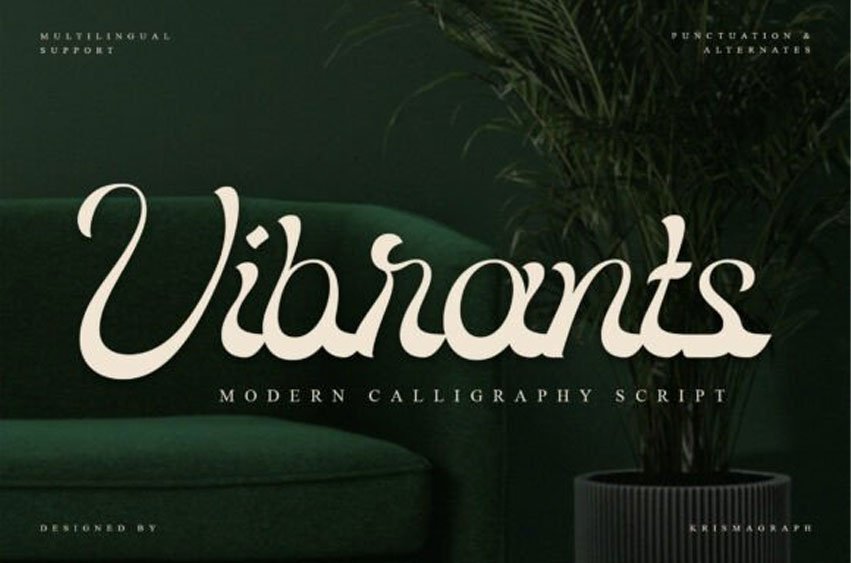
Vibrants Font is a modern calligraphy script font that blends soft curves with confident strokes. Designed to feel lively yet elegant, this font brings a fresh and expressive personality to branding, packaging, invitations, editorial titles, and creative layouts.
Vibrants font is a stunning modern calligraphy script that dances across the page with fluid grace and expressive swashes. This Vibrants typeface is designed to mimic high-end hand-lettering, making it an exquisite choice for luxury logos, signature-style branding, and upscale wedding stationery. The elongated strokes and elegant loops of the Vibrants font create a sense of movement and “vibrancy” that feels both personal and prestigious. To maximize its impact, use the included alternates and ligatures to give your text a truly custom, bespoke appearance.
This font pairs beautifully with a clean, all-caps serif to ground its flowy nature, making it a favorite for the fashion, beauty, and creative consulting industries seeking an artisanal touch.
Featuring punctuation, alternates, and multilingual support, Vibrants gives designers flexibility to create energetic yet refined typographic compositions. Its smooth rhythm and balanced contrasts make it suitable for both bold statements and elegant applications.